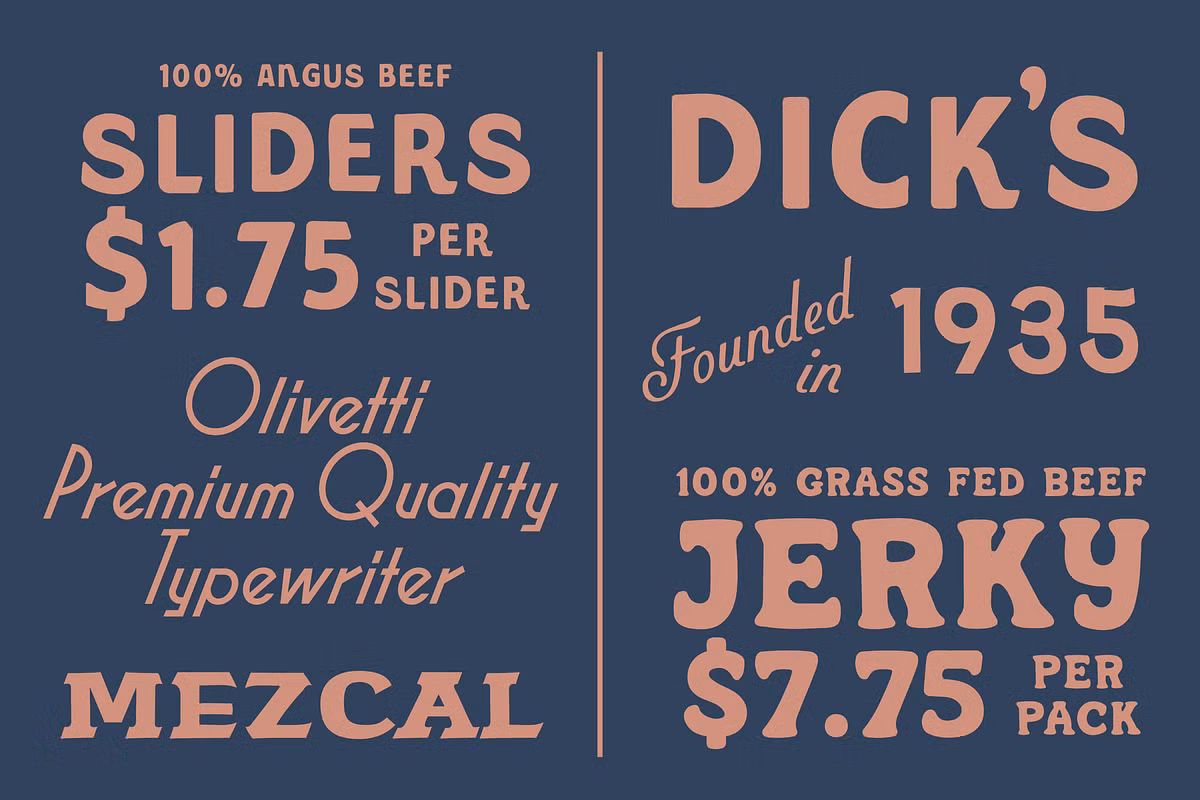
SAMPLE FONT COLLECTION: Hand-Drawn Typefaces for Creative Projects
The SAMPLE font collection is a set of hand drawn typefaces. The hand drawn typefaces capture the feeling of creativity and individuality. The fonts draw inspiration from hand lettering, old signs and old logos. The fonts work together. The fonts bring warmth, character and a hand made feel to any project. If you are a designer, an artist or a small business owner the SAMPLE font collection gives you a set of tools to help your work. I have used the SAMPLE font collection. I find the SAMPLE font collection, for my projects.
The design style of the SAMPLE font collection draws from hand drawn typography. The design style looks at the way a hand draws each letter. Each typeface, in the SAMPLE font collection has its quirks. Each typeface echoes the flaws and oddities of hand lettering. When I use the SAMPLE font collection I feel the hand drawn feel, in every letter. The design style gives your projects a feel. Your projects stand out in a world of fonts.
Hand-drawn typefaces have curves and different line weights. I see those curves and line weights give the text a feel. The collection includes the curves and different line weights of hand-drawn typefaces. I enjoy the style of hand-drawn typefaces because it brings back memories. Hand-drawn typefaces feel nostalgic. Hand-drawn typefaces work well for projects that want to connect with audiences on a level.
I look at the SAMPLE font collection. I see styles. The styles range from scripts to display fonts. Designers made the styles to work together. The SAMPLE font collection is flexible. The flexibility lets any project theme find a font that fits the vision. You can choose a font that matches the vision.
Character Sets
One of the parts of the SAMPLE font collection is the character sets. The SAMPLE font collection gives each font a set of characters. The SAMPLE font collection lets you write words, feelings and styles. I like that the SAMPLE fonts have everything I need. If you need letters if you need lowercase letters if you need numerals if you need characters the SAMPLE fonts have you covered.
Many typefaces have style alternates and ligatures. I notice that the alternates and ligatures add interest to my text. This feature helps branding projects because uniqueness matters. By using the characters you can make a more custom look. The custom look shows the personality of your brand. The custom look also shows the personality of your project.
Support, for characters makes the typefaces suitable for an audience. Support, for characters adds inclusivity to the designs. Inclusivity lets the designs reach communities. Reaching communities increases the appeal of the project.
Use Cases
The SAMPLE font collection is very flexible. I have found the SAMPLE font collection works, in creative projects. Here are some use cases, for the SAMPLE font collection:
- Branding: I recommend using the SAMPLE fonts to create a brand identity that stands out. The hand drawn style helps show the brand story and the brand values.
- Invitations: Add a touch to the wedding invitations the event flyers or the party invitations. Use typefaces that feel warm and creative. The typefaces add warmth and creativity.
- Packaging: I use the SAMPLE fonts on the product packaging. The packaging, with the SAMPLE fonts creates an unboxing experience. Shows the brand character.
- Social Media: Pick the fonts that make the graphics and the posts catch the eye. Social Media keeps the audience interested. Makes the Social Media presence stronger.
- Print Materials: From brochures, to posters these fonts lift the look of any printed material. I notice these fonts add a handmade feel to the printed material.
Pairing fonts well can lift the design. Give a visual feel. Below are some pairing ideas, for the SAMPLE font collection:
- Script, with Sans Serif: I combine the script font from the SAMPLE collection with the clean sans serif typeface. The script font brings the fun. The sans serif typeface brings the clarity. The modern look balances the elegance and the readability.
- Display with Serif: I like to use a display font to a classic serif typeface. The display font and the serif typeface create a contrast. The contrast pulls focus, to the messages.
- Two Scripts: Pair two different script fonts from the collection to create variety while maintaining a cohesive look, perfect for invitations or branding projects.
- Handwritten, with Geometric: I have seen that mixing a hand-drawn typeface with a font creates a tension. The dynamic tension looks good. The dynamic tension works well for campaigns.
The SAMPLE font collection is a resource, for anyone who wants to add the charm of hand‑drawn type to a project. The SAMPLE font collection has design styles. The SAMPLE font collection includes a set of characters. The SAMPLE font collection can be used in ways. The SAMPLE font collection offers many options, for creative work. If you are designing a logo crafting an invitation or developing brand material the SAMPLE fonts give you the tools to make memorable work. Feel the warmth and character of the SAMPLE font collection. Turn your ideas into reality.